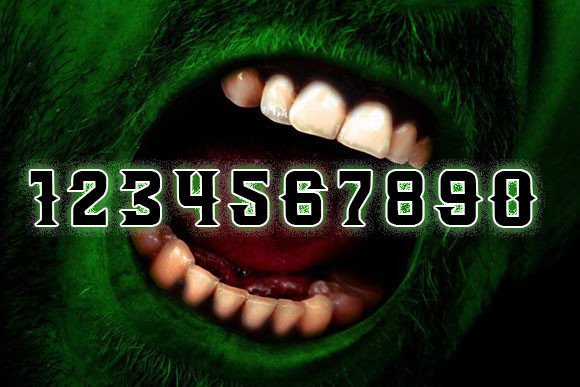
Minor is a modern and stylish blackletter font. Use it for product packaging, branding, or other projects that need bold and daring typography!
Minor Font